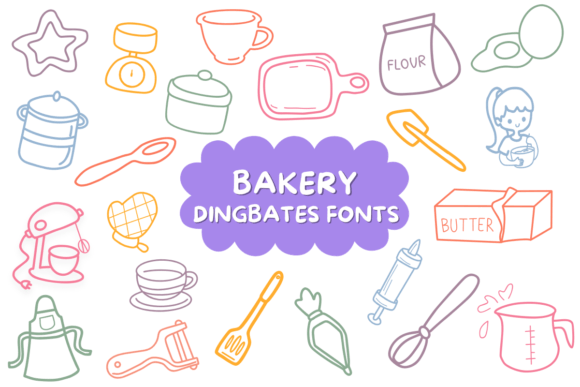
Sweet Inspiration Strikes!
Have you ever been stuck on a design project, scrolling through font options, and suddenly, the perfect idea hits you? Maybe it’s the aroma of freshly baked bread wafting through the air or the sight of a beautifully decorated cake. Whatever it is, it’s moments like these that remind us of the power of creativity. For designers, finding the right font can be the missing piece to bringing a design to life.
That’s where Bakery Font comes in – a delightful, decorative font that’s sure to add a touch of whimsy to your designs. Filled with adorable illustrations of bakery treats, this font is perfect for adding a playful twist to your projects. Whether you’re creating a dessert-themed party invitation or a bakery website, Bakery Font is sure to make your design stand out.
Bakery Font Key Features
- Size: The font family includes 6 font styles, ranging from 12pt to 24pt, offering flexibility for various design applications.
- Resolution: Designed at 300 DPI, Bakery Font is suitable for both print and digital applications, including packaging, advertising, and signage.
- Unique Characteristics: The font features a unique, hand-drawn style with intricate details, giving it a warm and inviting feel that’s perfect for bakeries, cafes, and food-related businesses.
- Scalability: The font is designed to be highly scalable, ensuring that it retains its quality and legibility even at large sizes or when used in digital applications.
Bakery Font Review
I recently had the chance to work with Bakery Font, and I must say it’s a delightful addition to any design project. Here are some of its strengths: ✨
- Unique aesthetic: Bakery Font boasts a charming, hand-drawn feel that’s perfect for creating a warm and inviting atmosphere.
- Customization options: With a range of font styles and sizes available, you can easily tailor Bakery Font to suit your design needs.
- Compatibility: Bakery Font works seamlessly with most design software, making it a great choice for designers of all levels.
- Limited font sizes: While Bakery Font offers a range of font styles, the available sizes are somewhat limited, which may not be ideal for certain design applications.
- Not ideal for small text: Due to its charming, hand-drawn design, Bakery Font may not be the best choice for small text or body copy.
Overall, I’m quite impressed with Bakery Font. Its unique aesthetic and customization options make it a great choice for designers looking to add a touch of warmth and personality to their projects. While it may have some limitations, I believe it’s a solid addition to any design arsenal.
Bakery Font Practical Application Guide
For a more authentic bakery look, use the font in combination with distressed textures and watercolor effects.
For a more realistic bakery look, use the font in combination with layer blending modes and texture overlays.
For a more polished bakery look, use the font in combination with subtle animations and color schemes.
The Bakery Font is ideal for bakery and food-related businesses, as well as for creating invitations, menus, and signage.
Some popular use cases include:
- Bakery menus and price lists
- Cake and dessert labels
- Bakery-themed invitations and party decorations
- Food truck and restaurant signage
Alternatives to Bakery Font
Great Vibes is a beautiful, modern script font ideal for creating a friendly and approachable atmosphere. It’s perfect for headings, titles, and quotes. When to use: For casual, creative, or inspirational projects where you want to convey a sense of optimism and joy.
Comparison to Bakery Font: Great Vibes has a similar cursive feel but with a more relaxed and casual tone, making it suitable for a wider range of projects.
Lobster is a popular, elegant script font often used in advertising and branding. It’s perfect for creating a sense of sophistication and luxury. When to use: For high-end or premium projects where you want to convey a sense of exclusivity and refinement.